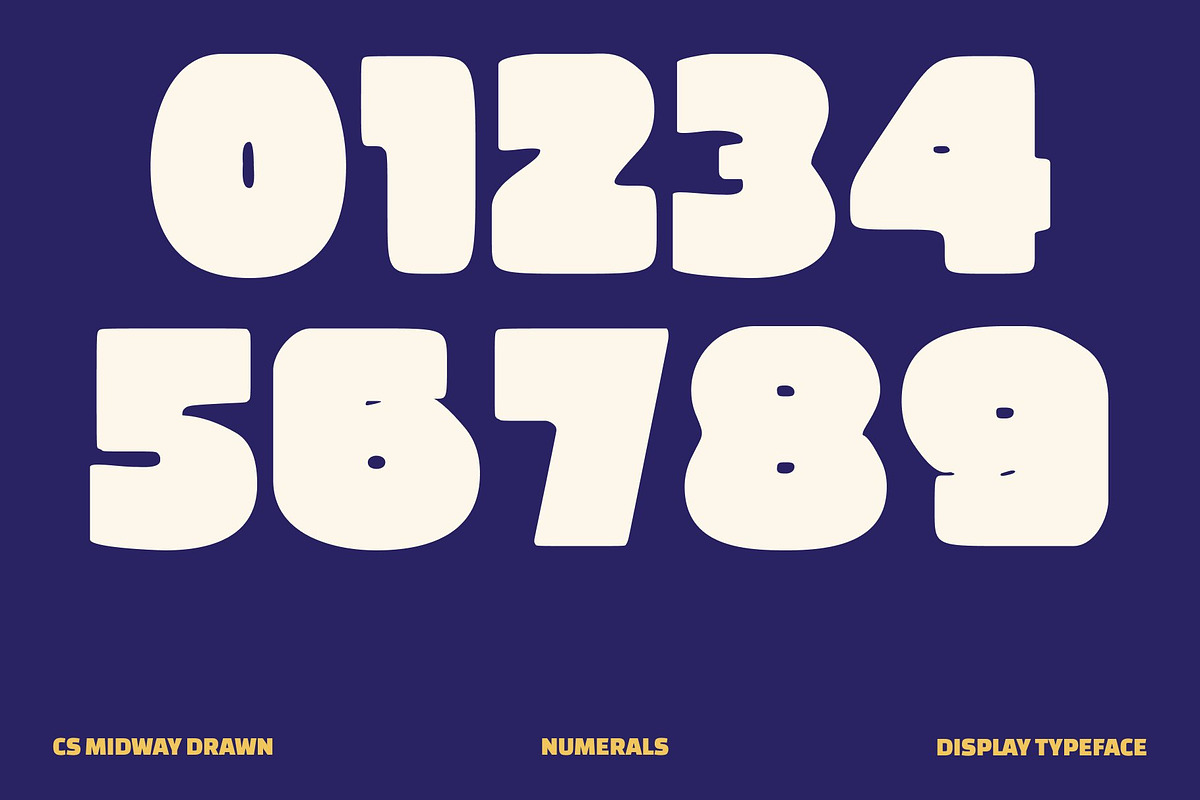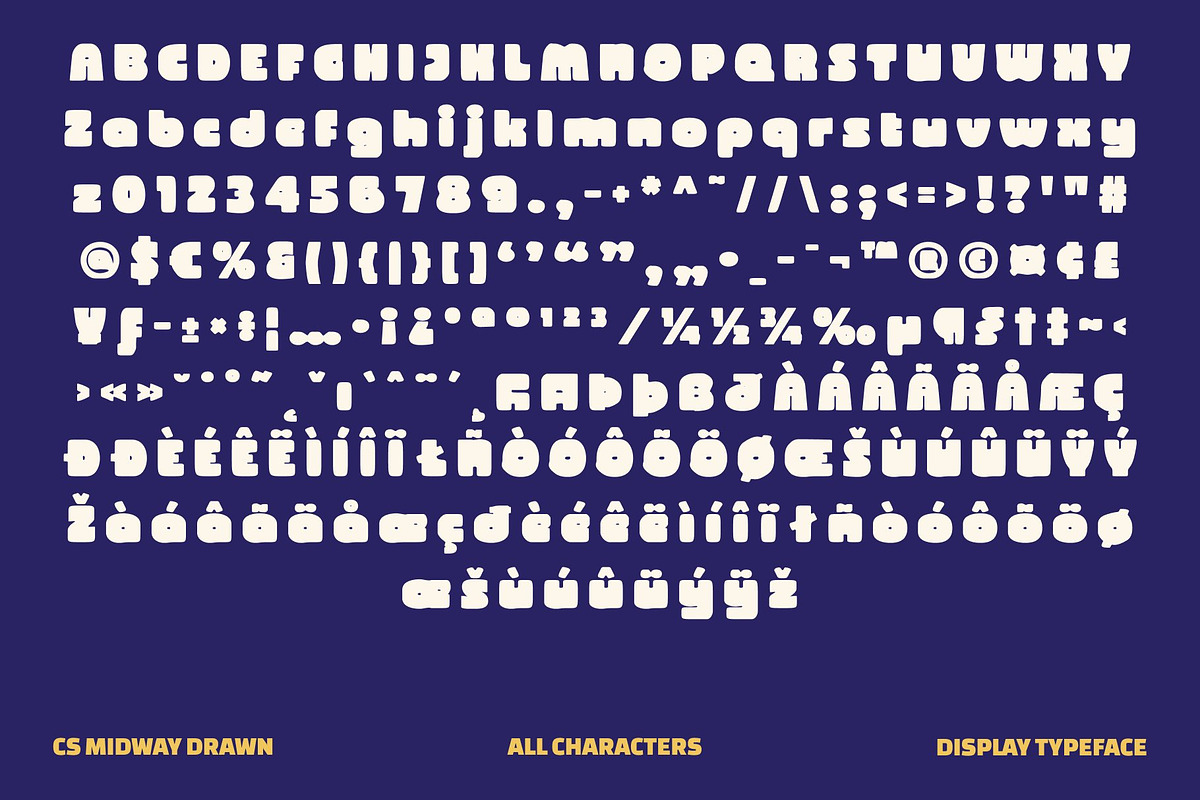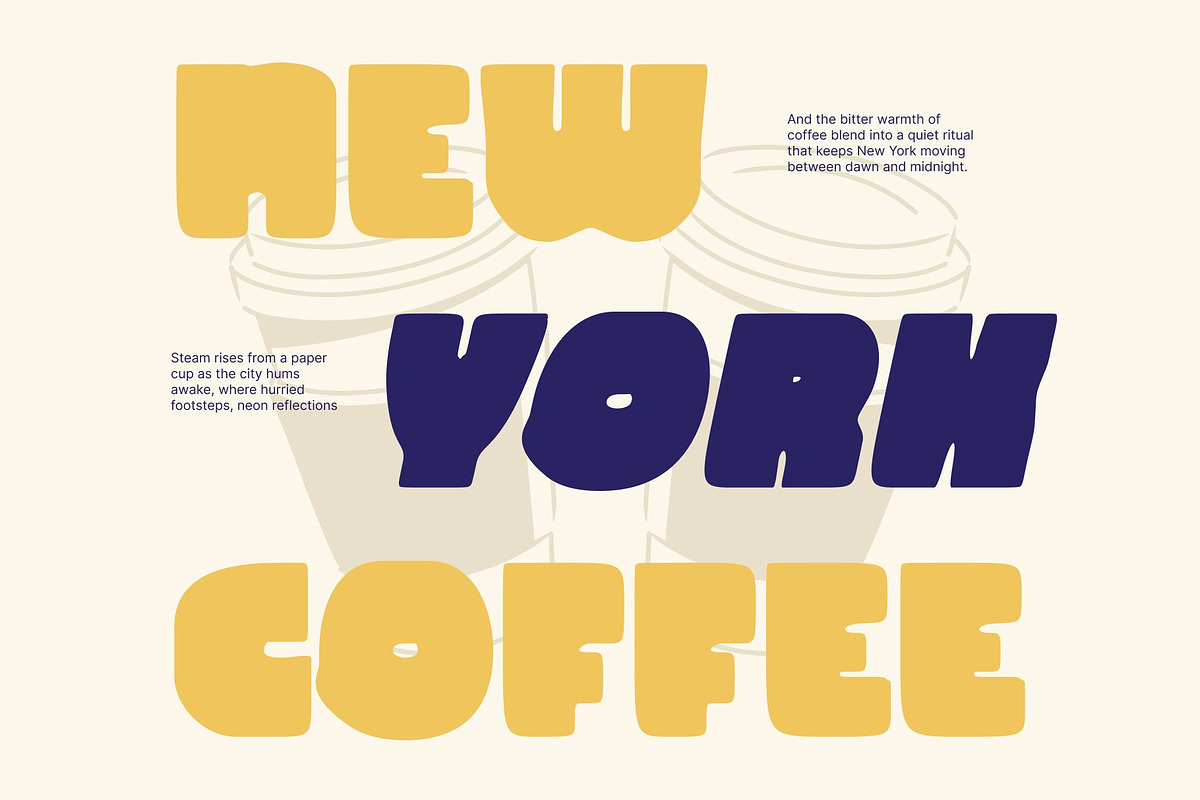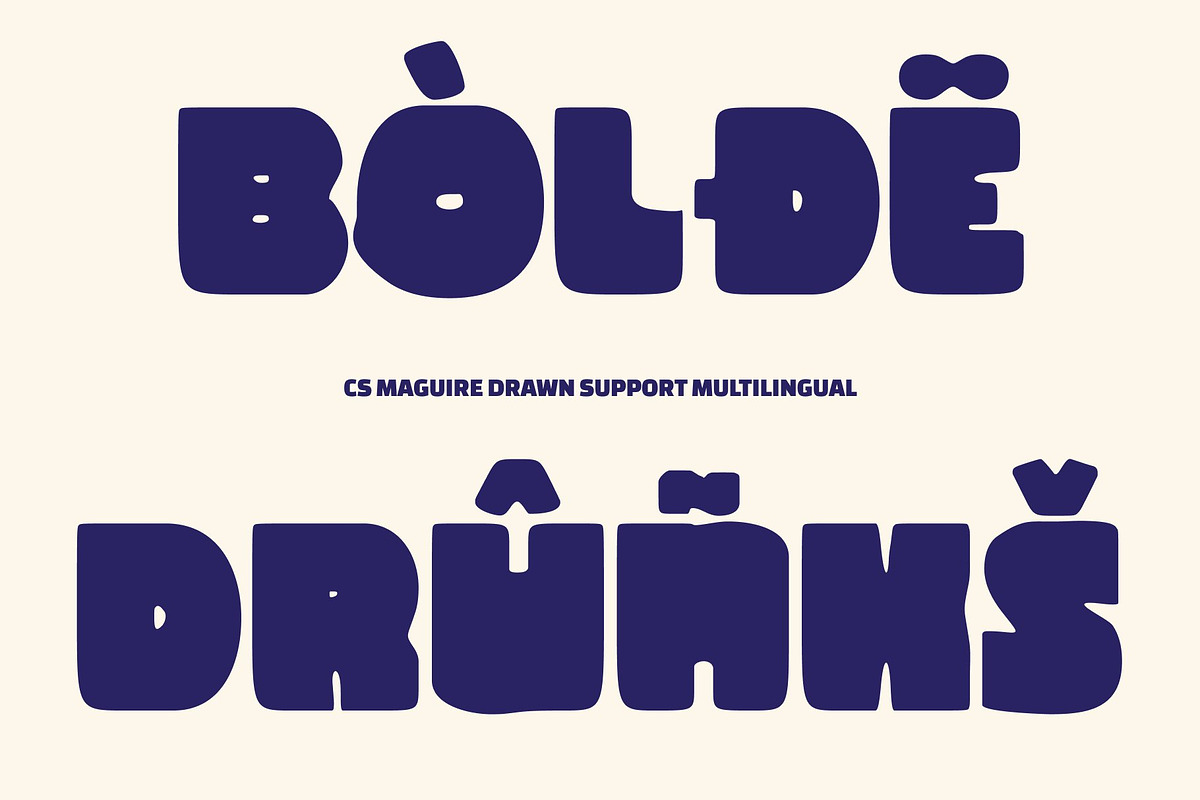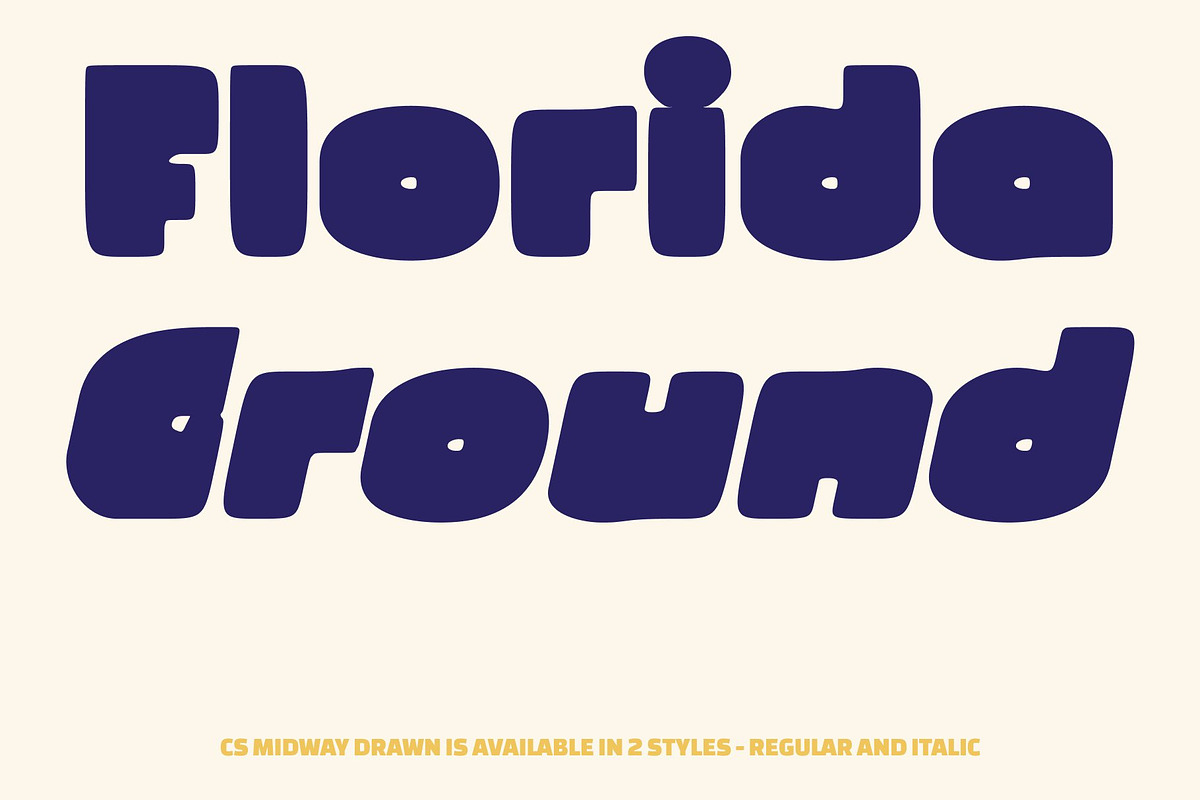
CS Midway Drawn
CS Midway Drawn – Bold Display Font with Fresh Funky Energy
Bold Structure with Hand-Drawn Character This is a modern sans serif display font built with bold, clean letterforms and a lively hand-drawn texture. Its solid construction delivers strong visual impact, while the drawn details introduce a playful, organic edge that feels expressive, fresh, and full of personality.
Funky, Confident, and Full of Life More than just bold, this font carries a funky spirit that brings warmth and approachability to its powerful form. The subtle imperfections of the drawn style add movement and charm, making the font feel energetic and creative without losing clarity or confidence.
Perfect for Eye-Catching Designs Designed to stand out, this font shines in headlines, posters, logos, packaging, and promotional visuals. Its bold presence ensures maximum attention, while its playful flair keeps designs engaging, modern, and memorable.
Versatile for Creative and Professional Use Despite its fun personality, this font adapts beautifully to professional projects. It balances strength and creativity, making it ideal for branding, social media graphics, digital campaigns, and contemporary visual identities that want to feel bold yet approachable.